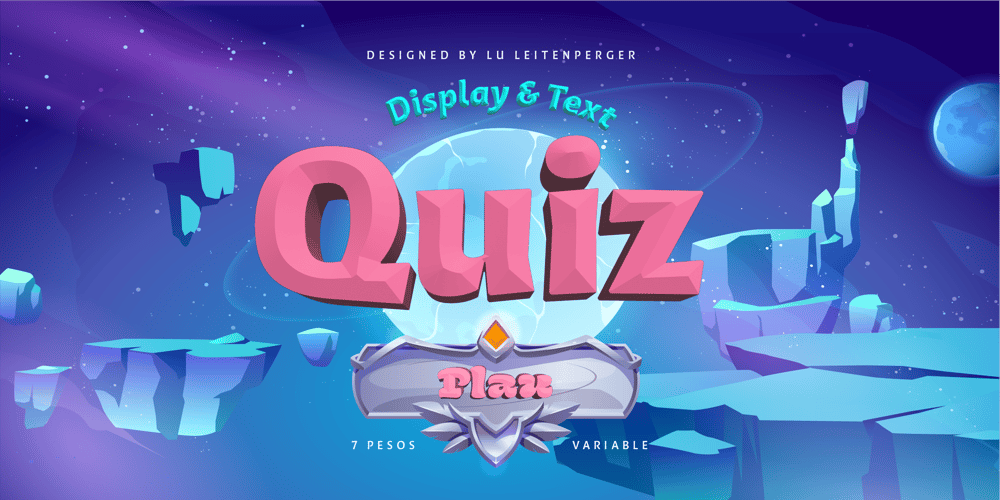
Quiz Font Family was designed by Luisa Leitenperger and published by Plau. Quiz contains 28 styles and family package options. Crafted by the talented Lu Leitenperger, Quiz stands out for its uniqueness and adaptability. Drawing inspiration from the art of calligraphy, “Quiz” is expressive without compromising its functionality. Perfect for both extensive texts and impactful phrases, and optimized for any screen type, it’s the ideal choice for a wide array of projects. Quiz comes in 28 unique styles, split between text and display versions, each with seven different weights.